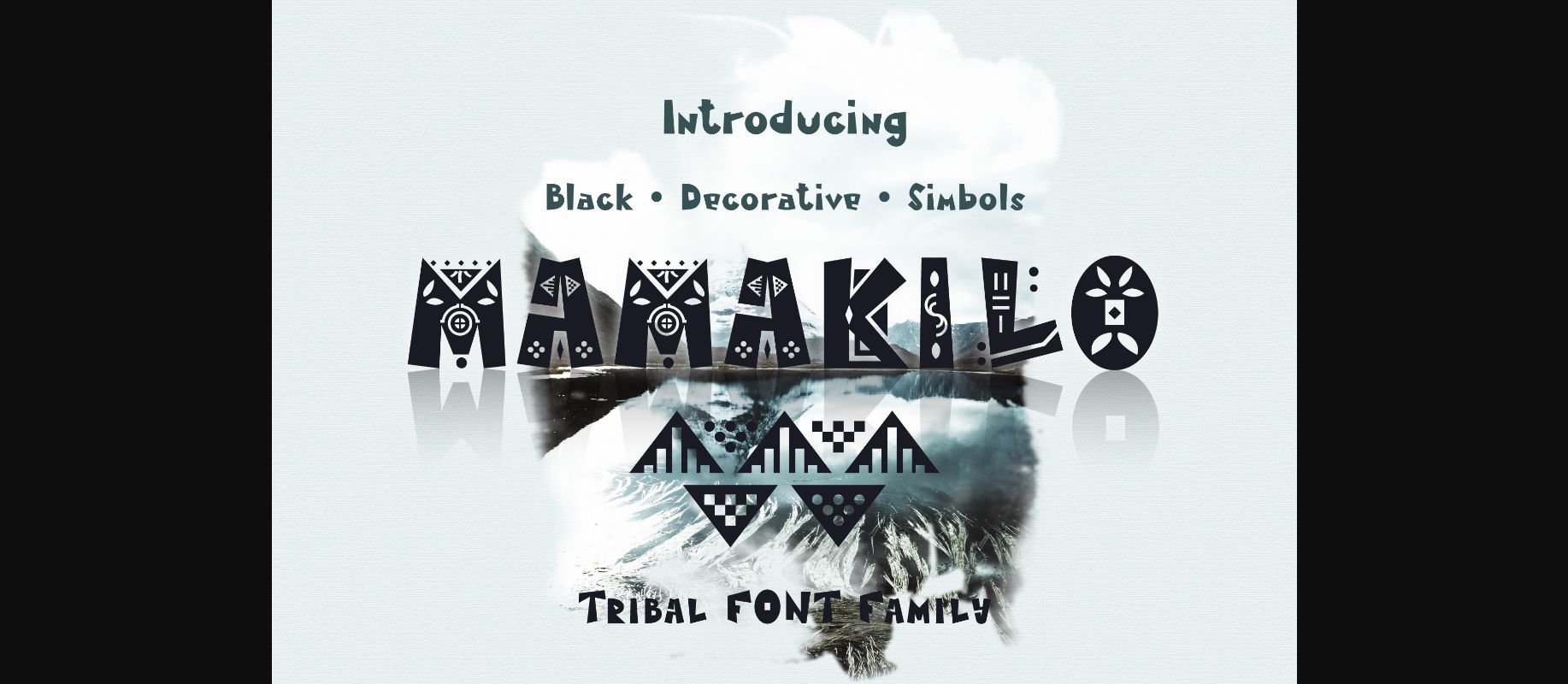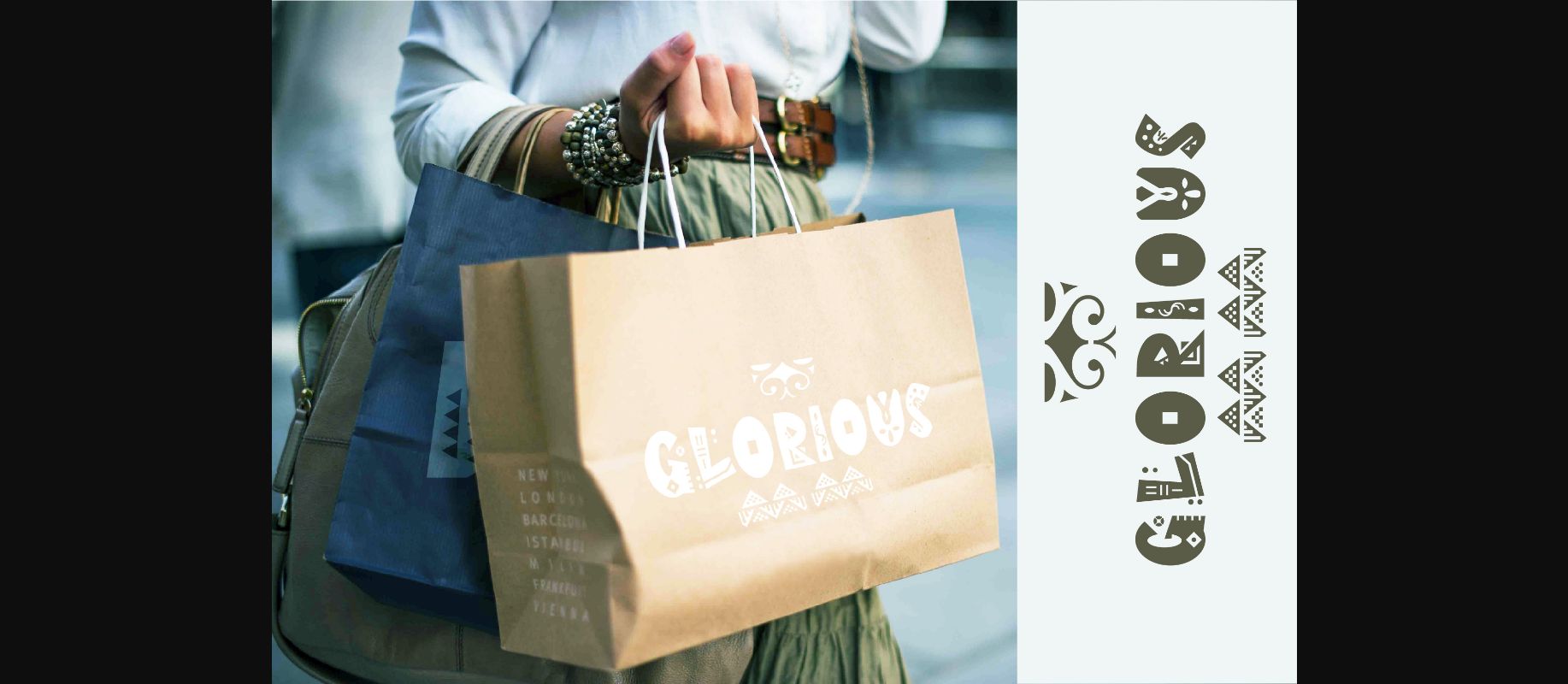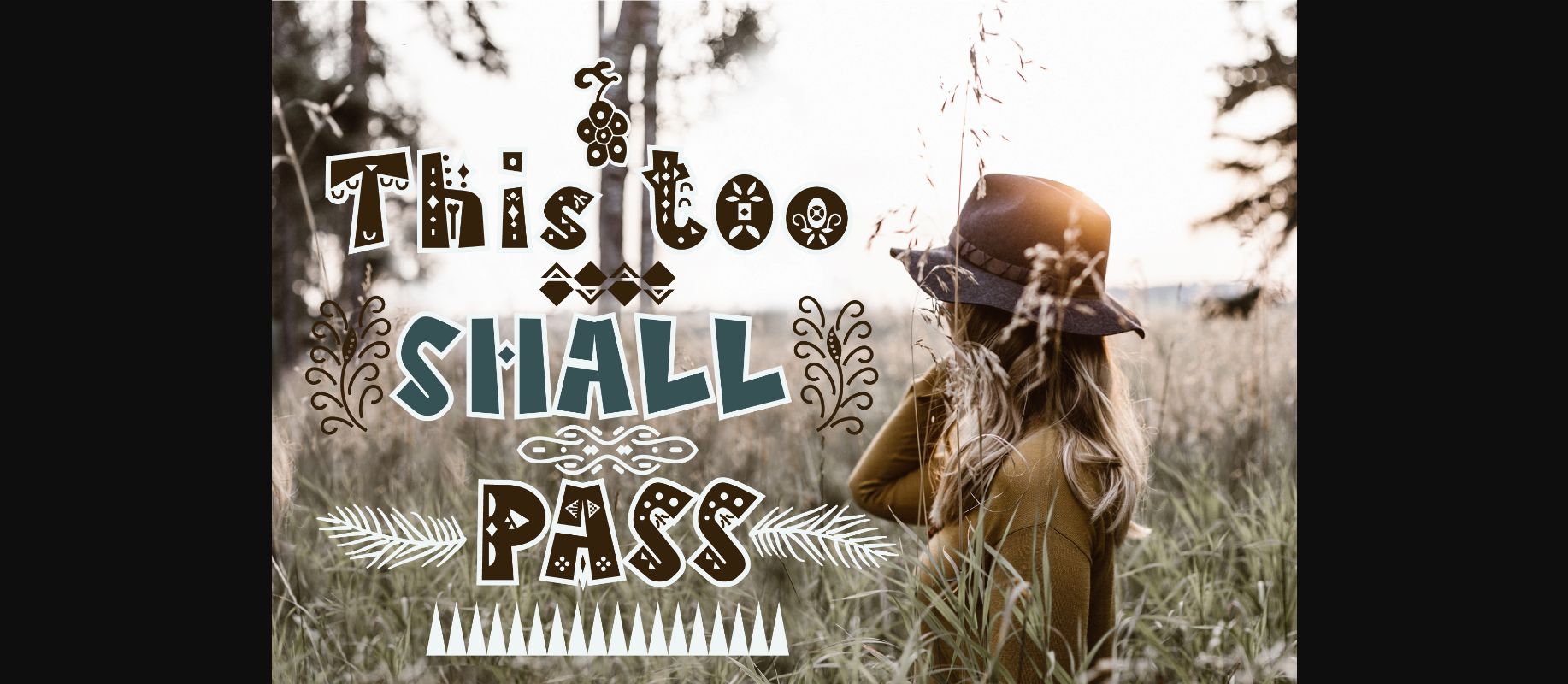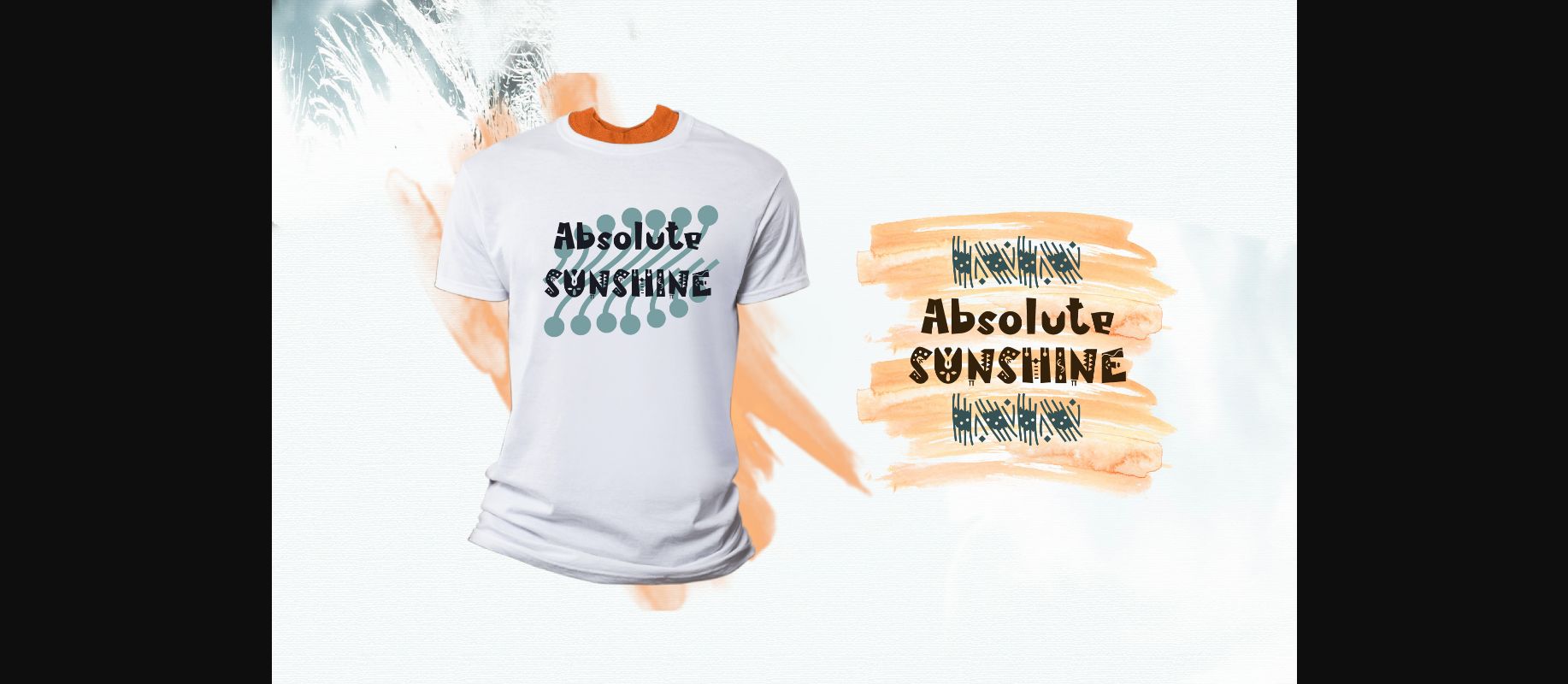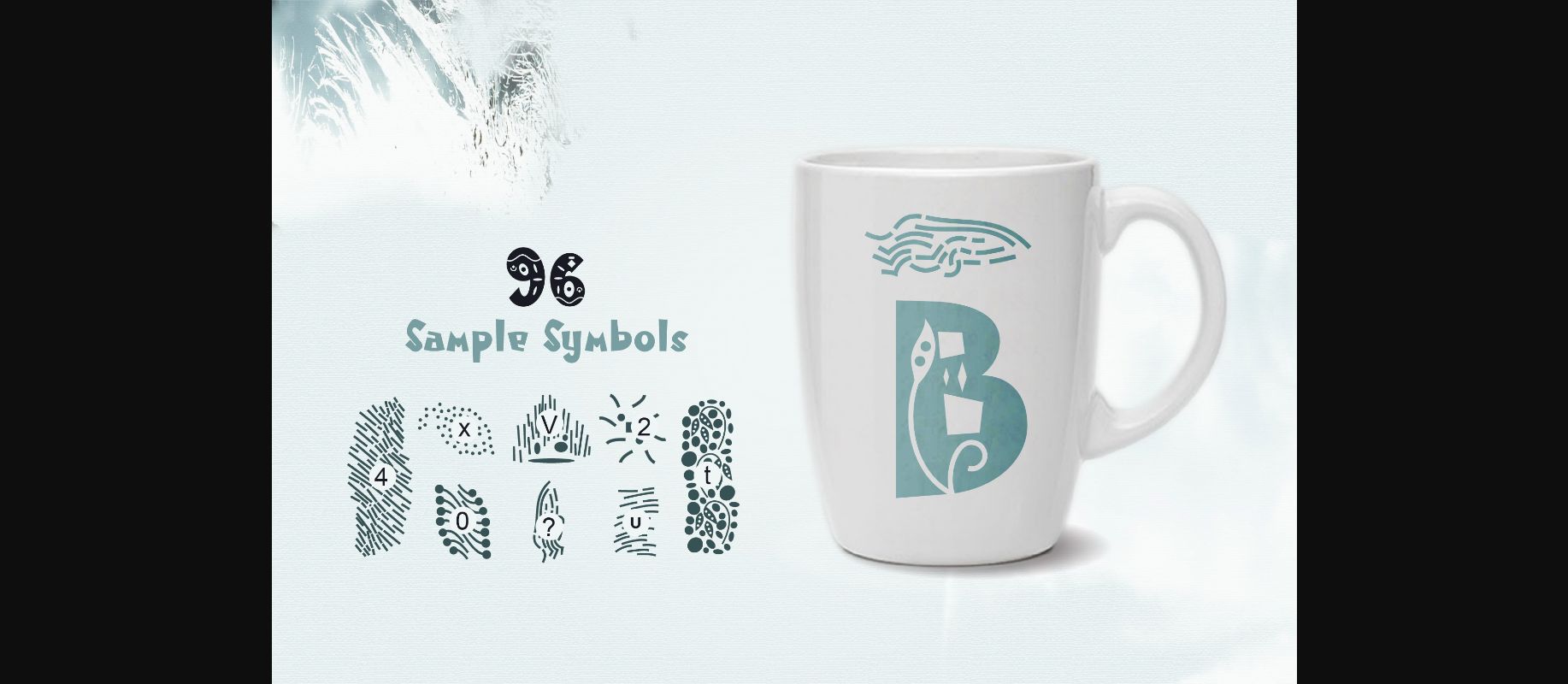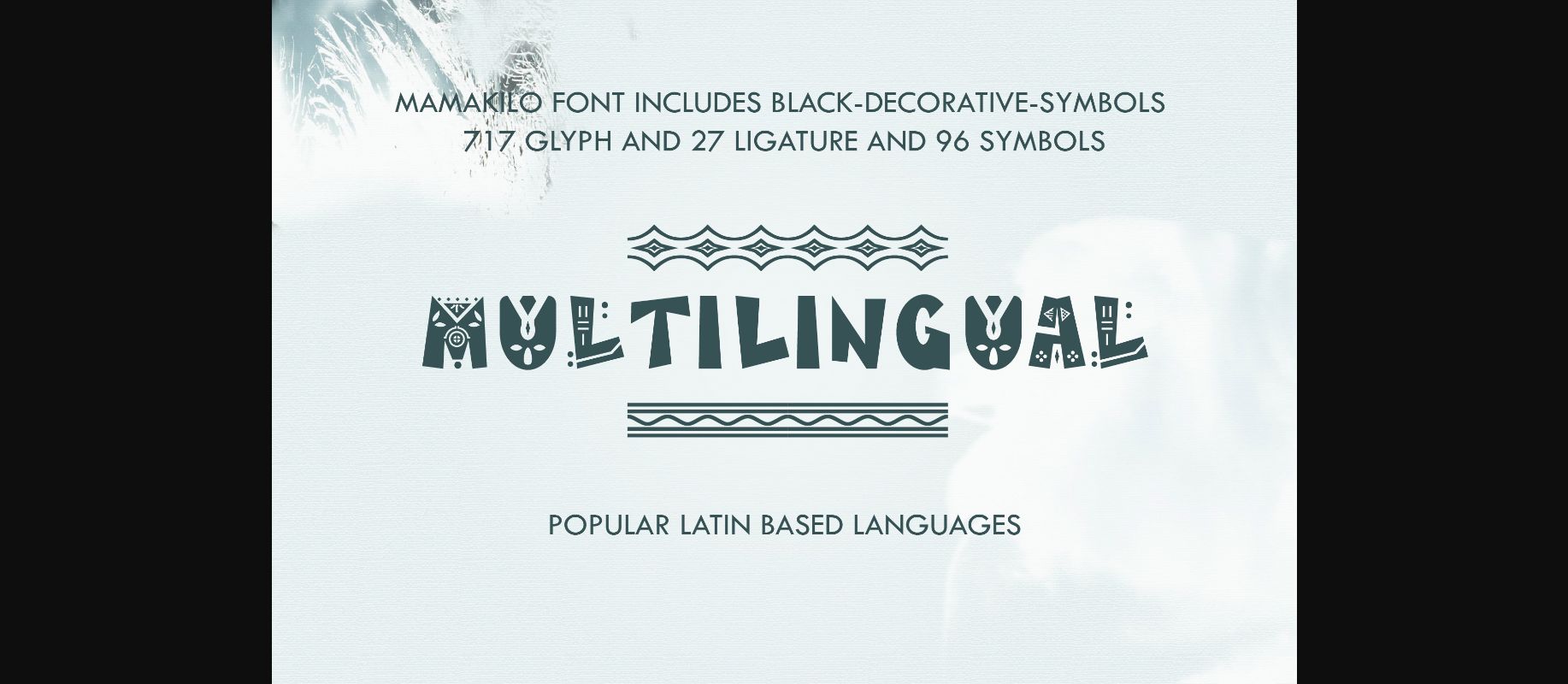
MamaKilo Font
About MamaKilo Font
MamaKilo is an incredibly unique decorative font. Masterfully designed to become a true favorite, this font has the potential to bring each of your creative ideas to the highest level!